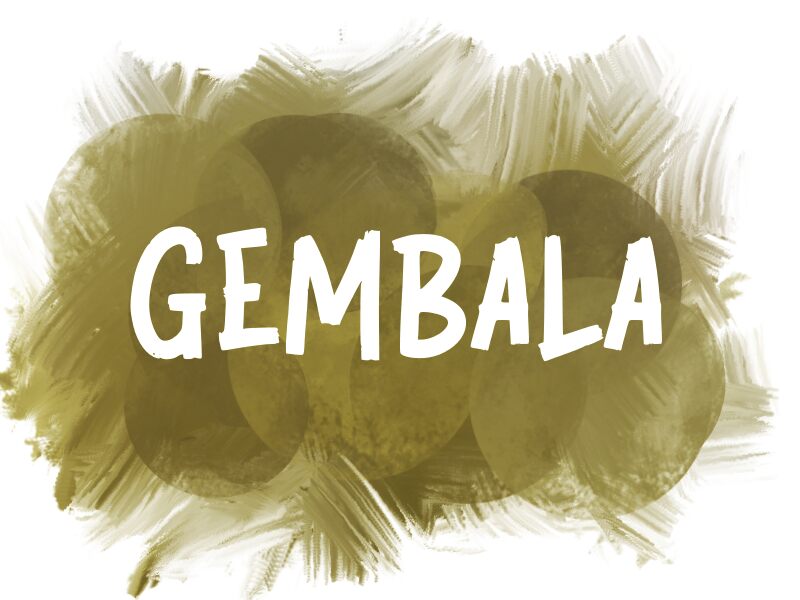
GEMBALA
Gembala, a captivating handwritten font designed by wep, radiates a heartfelt and organic charm. Its fluid strokes and playful ligatures evoke a sense of warmth and authenticity, making it a standout choice for projects seeking a personal, handcrafted aesthetic. The font's natural variations and expressive, slightly quirky characters add depth and character, effortlessly capturing the essence of handwritten communication.
Gembala's versatility extends beyond its alluring visual appeal, making it a versatile option for a wide range of design applications. Its adaptable nature lends itself well to branding and marketing materials, adding a touch of personalization and approachability. Additionally, the font's legibility and distinctive flair make it an excellent choice for editorial layouts, invitations, and other design pieces that require a captivating, hand-crafted touch.